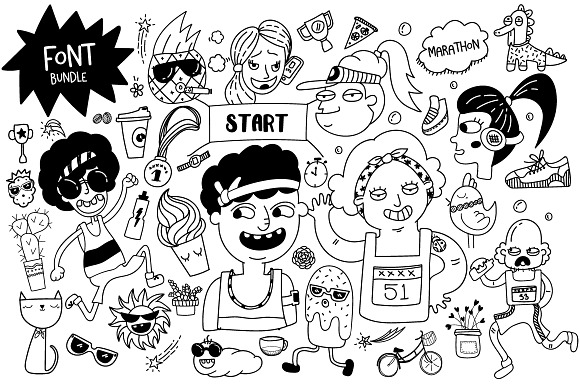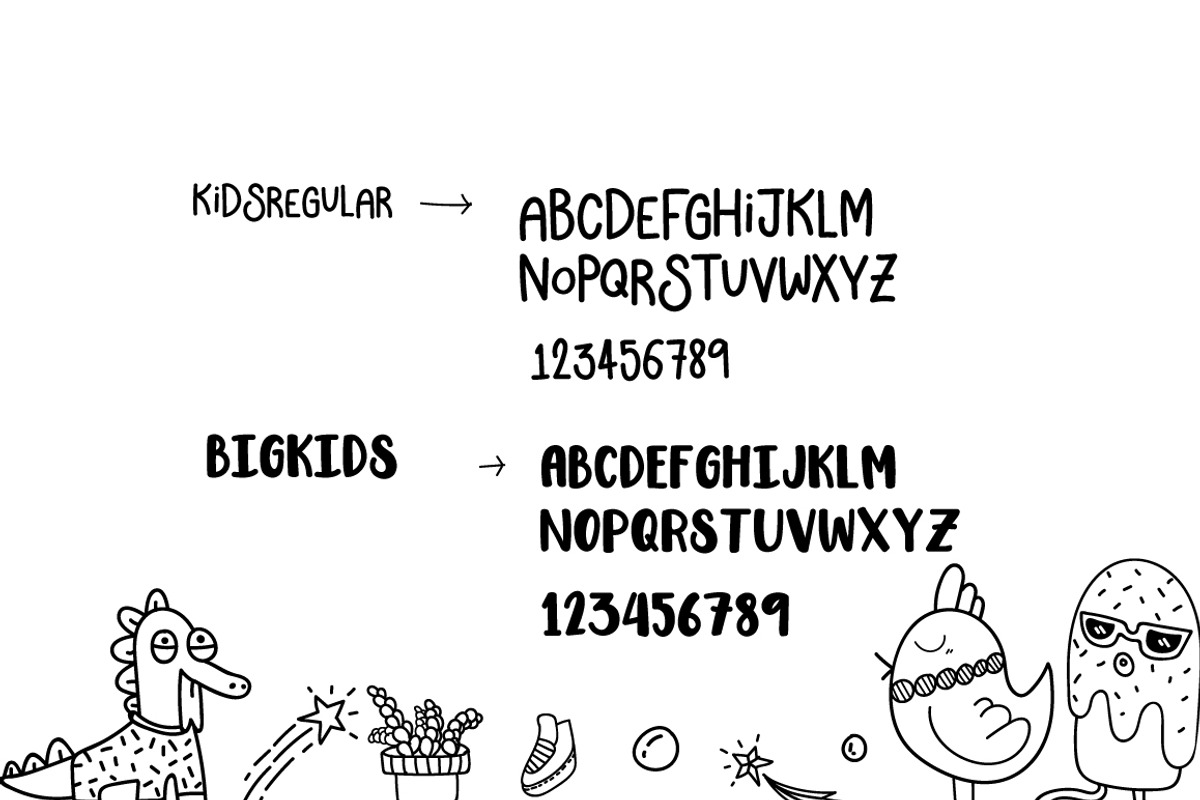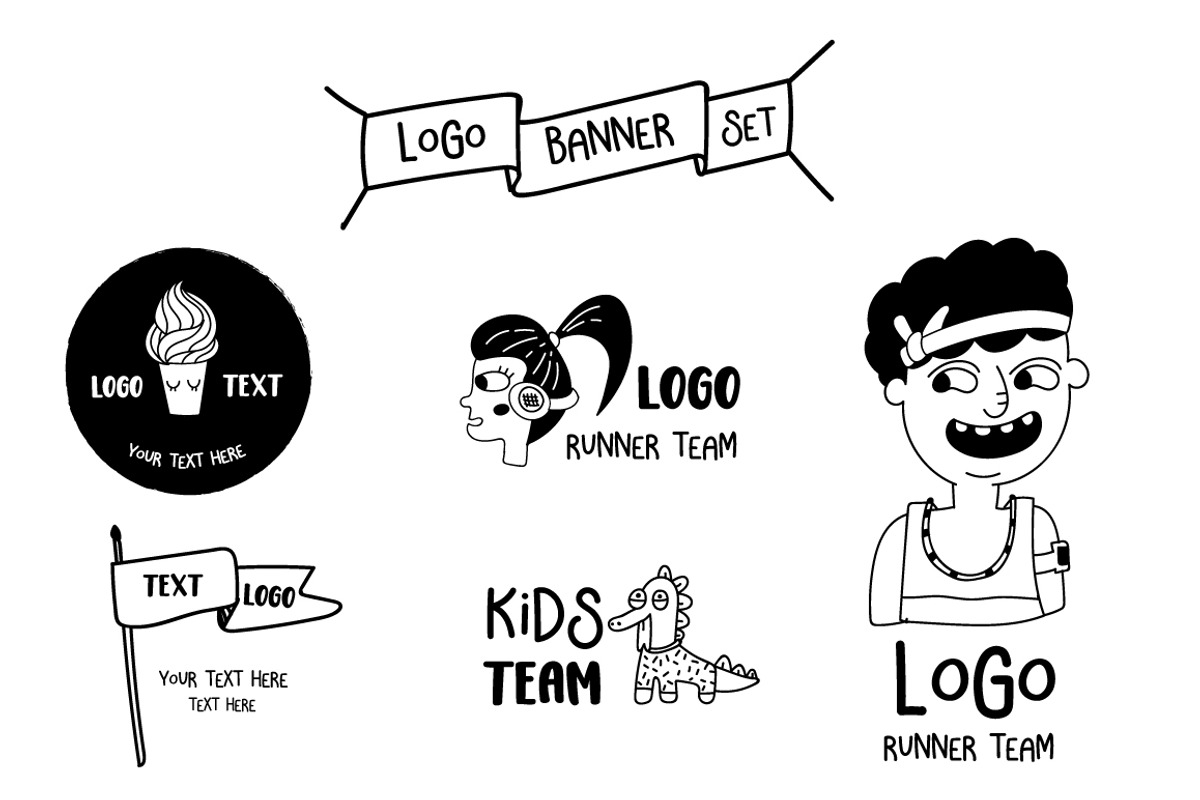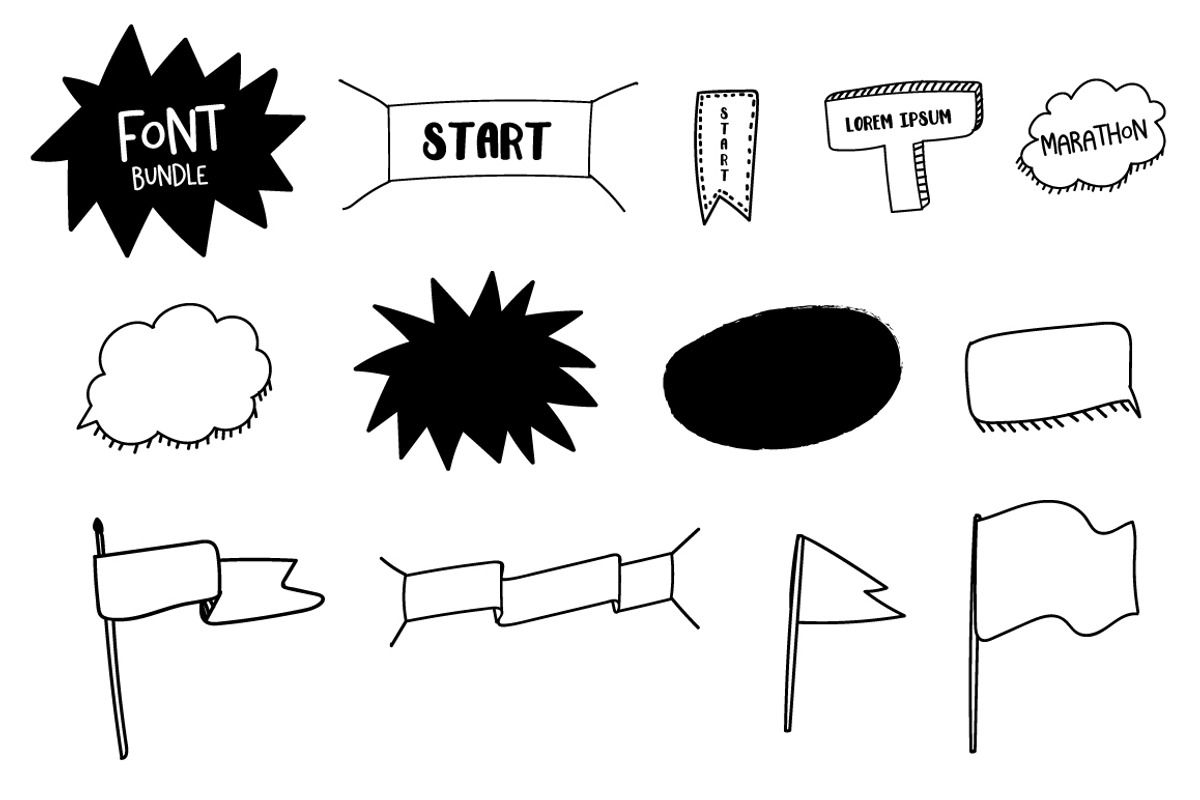
Hand Doodle and Kids Fonts
BigKid Font & KIDSRegular Font Two fresh handmade calligraphy font. Design for logo or create unique design product, blog, magazine and more your creative design.
NOTE :: This font only support Capital letter and number
Hand Doodle and Kids Fonts by MooBeer fits naturally into Branding, posters, packaging, typography.